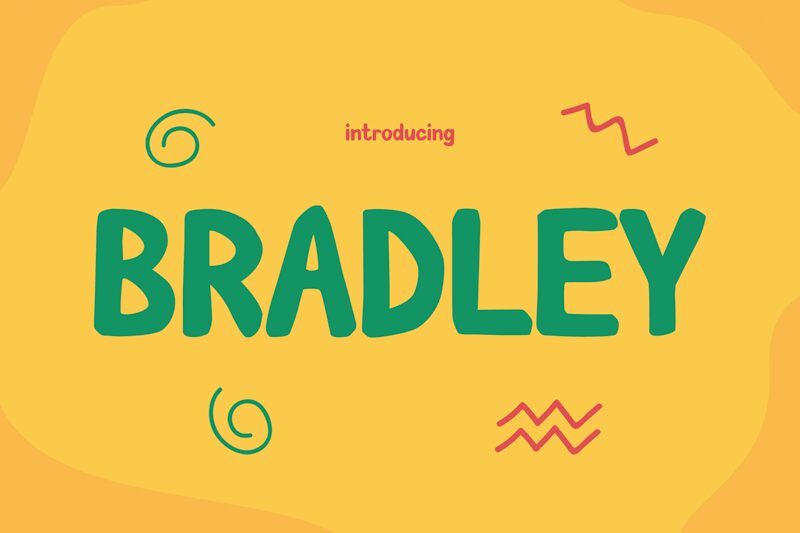
Bradley font by Pinisiart is a cartoon display font whose compact characters are arranged in a retro aesthetic style. Its impactful appearance makes it the perfect choice for when you want your text to be clear and noticeable rather than fade into the background. A simple glance over short or longer bodies of text will allow anyone to easily pick up on what’s written.
Add Bradley to all types of posters, signs, menus, book covers, children books, BD covers, headlines, titles, print on apparels and merchandise items like cups and mugs. The font works well in any size as long as there’s large enough contrast between letters and background color.
BRADLEY — Presentazione del carattere